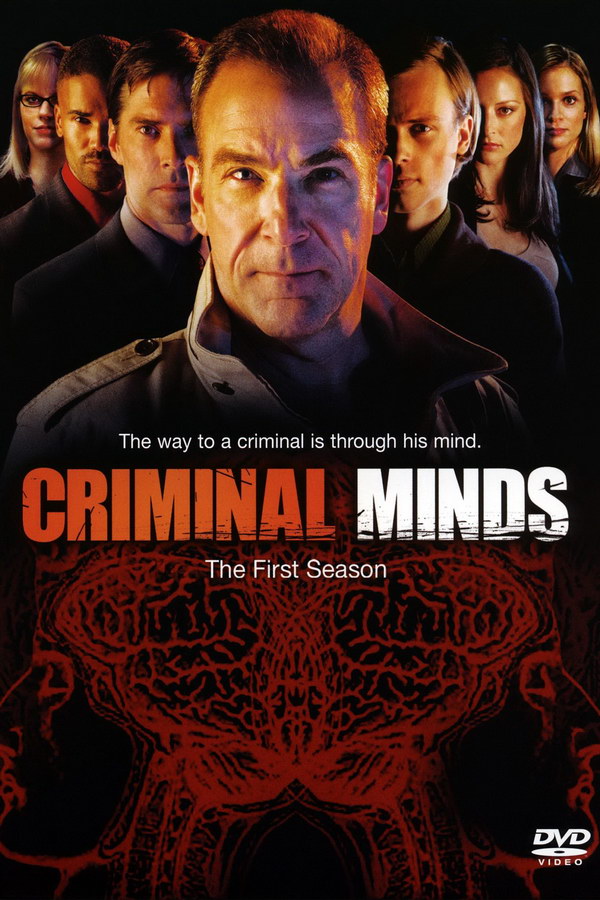
Criminal Minds Font
Fonts in UseCriminal Minds is a popular American crime drama television series that follows a team of FBI profilers who analyze the country's most dangerous criminal minds to anticipate and prevent their next moves. The show aired for 15 seasons from 2005 to 2020.
The title font of the TV series resembles Impact URW D Bold, while the scratching effect at the bottom of the text has been manually added. Impact URW D Bold is a commercial font that can be acquired here